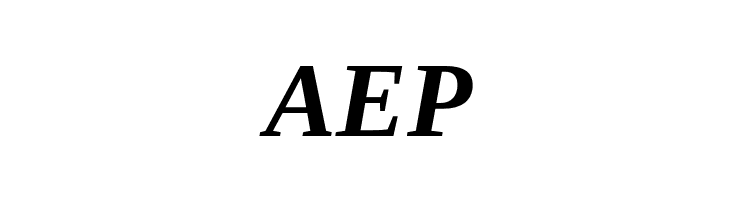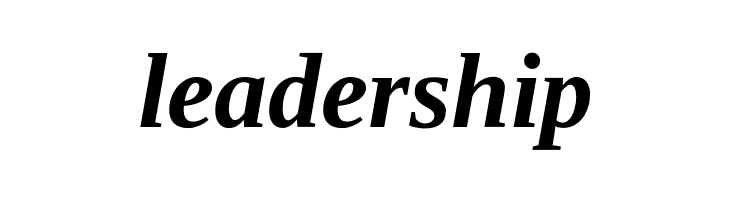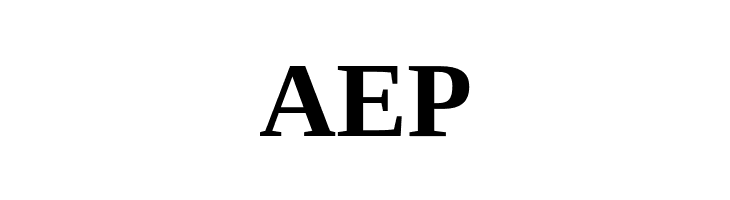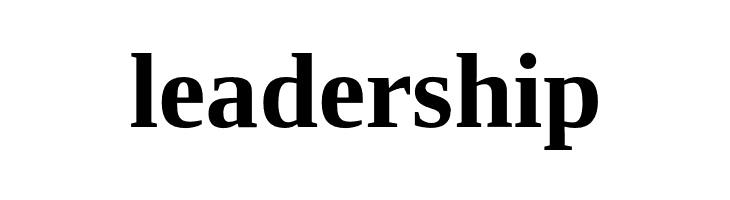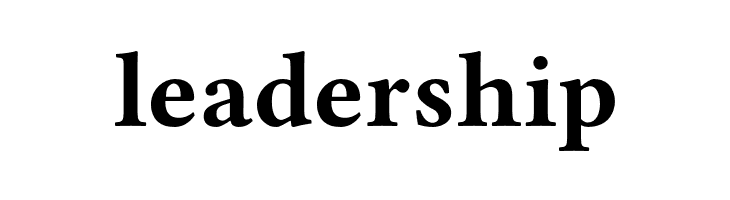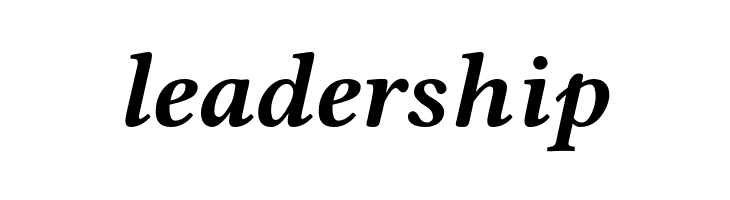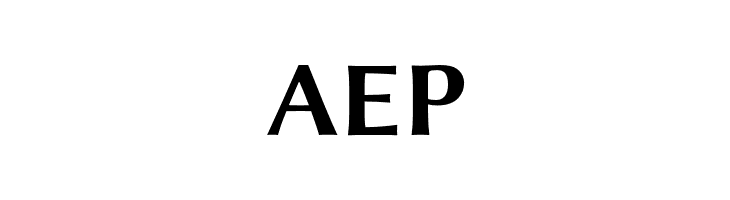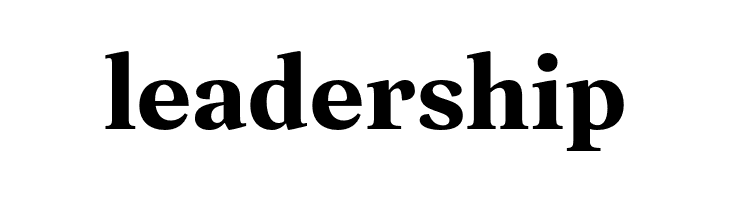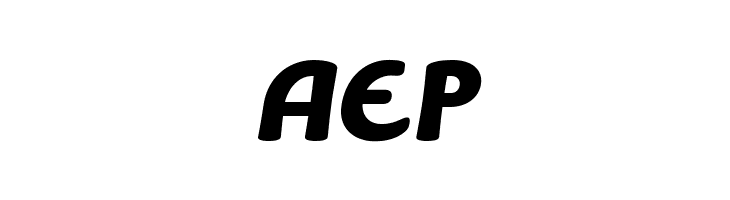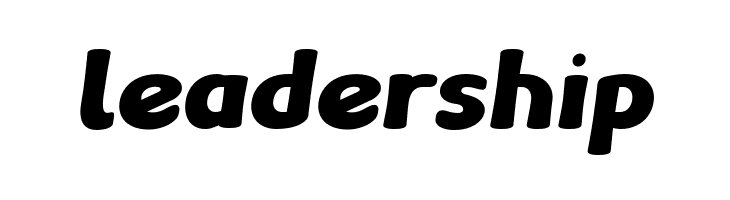
( K-Type Freebies (Free for Personal Use Only) FROM http://www.k-type.com ) A bold, rounded sans-serif font with a modern and clean appearance. Download 3566 Downloads@WebFont
( K-Type Freebies (Free for Personal Use Only) FROM http://www.k-type.com ) A bold, rounded sans-serif font designed for optimal readability. Download 160 Downloads@WebFont
( Fonts by Font People - Personal-use only. For commercial use please contact owner. ) A bold serif font with a classic and authoritative style. Download 199 Downloads@WebFont
( Fonts by Font People - Personal-use only. For commercial use please contact owner. ) A bold, italicized font with a modern and dynamic style. Download 51 Downloads@WebFont
( Fonts by Matthew Welch - www.squaregear.net/fonts/ ) A bold, modern sans-serif font with clean lines and strong readability. Download 2509 Downloads@WebFont
( Fonts by Red Hat ) A bold, monospaced font ideal for coding and technical documents. Download 1168 Downloads@WebFont
( Fonts by Red Hat ) A bold, italicized monospaced font with a modern and dynamic style. Download 474 Downloads@WebFont
( Fonts by Red Hat ) A bold, modern sans-serif font with excellent readability and uniform strokes. Download 8888 Downloads@WebFont
( Fonts by Red Hat ) A bold, italicized sans-serif font with a modern and dynamic style. Download 2455 Downloads@WebFont
( Fonts by Red Hat ) A bold, classic serif font with strong strokes and pronounced serifs. Download 8368 Downloads@WebFont
( Fonts by Red Hat ) A bold, italic serif font with a classic and elegant style. Download 1811 Downloads@WebFont
( Fonts by Philipp H. Poll - Personal-use only. For commercial use please contact owner. ) A bold, modern sans-serif font with clean lines and balanced proportions. Download 1425 Downloads@WebFont
( Fonts by Philipp H. Poll - Personal-use only. For commercial use please contact owner. ) A bold, classic serif typeface with strong, elegant strokes. Download 2961 Downloads@WebFont
( Fonts by Philipp H. Poll - Personal-use only. For commercial use please contact owner. ) A bold, italic serif font with a classic and elegant style. Download 430 Downloads@WebFont
( Fonts by Yves Michel - Personal-use only. For commercial use please contact owner. ) A bold, playful font with rounded edges and a whimsical style. Download 74 Downloads@WebFont
( Fonts by Yves Michel - Personal-use only. For commercial use please contact owner. ) A bold, italic font with rounded characters and a dynamic, energetic style. Download 46 Downloads@WebFont
( Fonts by Stefan Peev, Context Ltd - Personal-use only. For commercial use please contact owner. ) A bold, modern serif font with strong serifs and a classic yet contemporary look. Download 669 Downloads@WebFont
( Fonts by Stefan Peev, Context Ltd - Personal-use only. For commercial use please contact owner. ) A bold, italic serif font with a modern and elegant style. Download 516 Downloads@WebFont
( Copyright (c) 2012, Pablo Impallari (www.impallari.com|impallari@gmail.com) ) A classic serif typeface with high contrast and elegant design. Download 5723 Downloads@WebFont
( Copyright (c) 2012, Pablo Impallari (www.impallari.com|impallari@gmail.com), Rodrigo Fuenzalida (www.rfuenzalida.com|hello@rfuenzalida.com), with Reserved Font Name Libre Caslon. ) A bold, classic serif font with strong strokes and elegant serifs. Download 1550 Downloads@WebFont
( Copyright (c) 2015, Impallari Type (www.impallari.com) ) A bold, modern sans-serif font with clean lines and strong readability. Download 2429 Downloads@WebFont
( Copyright (c) 2015, Impallari Type (www.impallari.com) ) A bold, italicized modern sans-serif font with clean lines and a dynamic slant. Download 372 Downloads@WebFont
( Copyright (c) 2012, Pablo Impallari (www.impallari.com|impallari@gmail.com) ) A bold, classic serif typeface with strong, elegant serifs and balanced proportions. Download 3971 Downloads@WebFont
( Copyright (c) 2012, Pablo Impallari (www.impallari.com|impallari@gmail.com) ) A classic serif font with elegant italics and refined character design. Download 1927 Downloads@WebFont
( Copyright (c) 2012, Pablo Impallari (www.impallari.com|impallari@gmail.com) ) A classic serif typeface with elegant serifs and balanced stroke contrast. Download 4931 Downloads@WebFont
( Copyright (c) 2012, Pablo Impallari (www.impallari.com|impallari@gmail.com), Rodrigo Fuenzalida (www.rfuenzalida.com|hello@rfuenzalida.com), with Reserved Font Name Libre Caslon. ) A bold serif typeface with classic elegance and strong presence. Download 1368 Downloads@WebFont
( Copyright (c) 2012, Pablo Impallari (www.impallari.com|impallari@gmail.com), Rodrigo Fuenzalida (www.rfuenzalida.com|hello@rfuenzalida.com), with Reserved Font Name Libre Caslon. ) A classic and elegant italic serif font with moderate contrast and refined serifs. Download 834 Downloads@WebFont